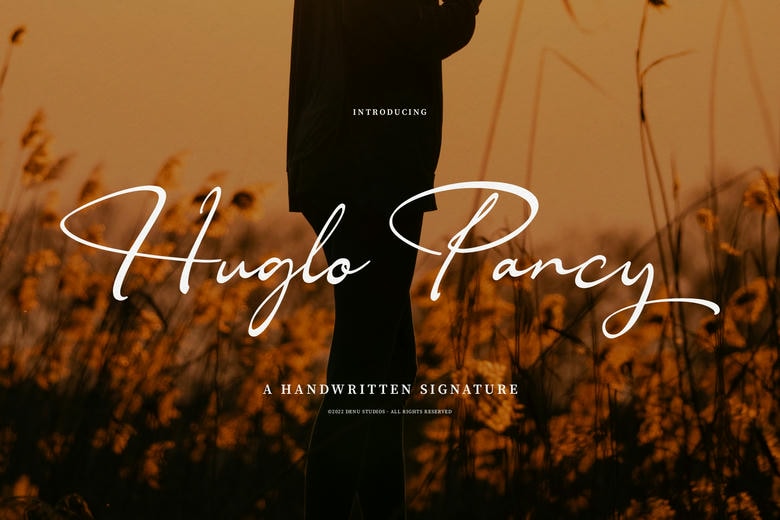
Huglo Pancy Font
Huglo Pancy is a handwritten signature font that blends sophistication and warmth with a natural, graceful style. Its fine strokes and smooth letters give it an elegant, authentic feel, making it ideal for branding, personal logos, wedding invitations, and luxury packaging.
Huglo Pancy Handwritten Script Font